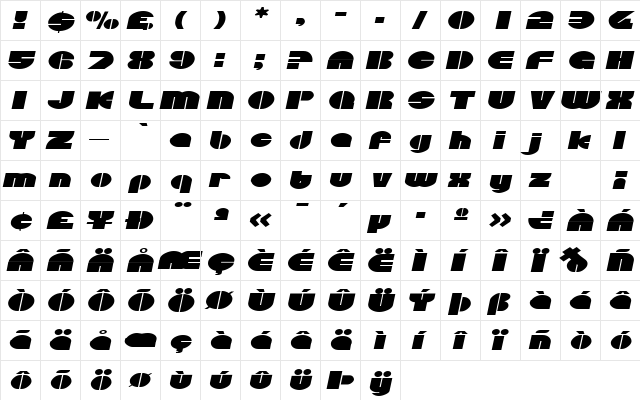
CircularSawExtended Oblique
Design Context for CircularSawExtended Typeface
CircularSawExtended is a composed and adaptable typeface that performs quietly and consistently across a wide range of design contexts. Its italic angle brings a sense of urgency and motion to the letterforms.
Pro Tip: Use CircularSawExtended for emphasis, pull quotes, and subheadings where its slanted energy can add rhythm to the layout.